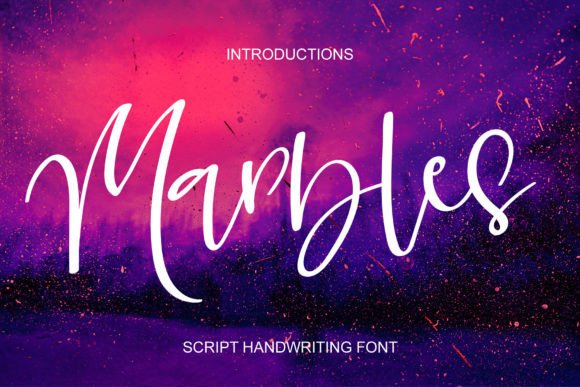
Journey through the Timeless Elegance of Marbles Font: A Symphony of Sophistication for Your Creative Endeavors
In the realm of digital artistry, where words dance across the screen, there lies a font with a captivating presence, a font that exudes an aura of timeless elegance: Marbles Font. This exquisite creation from the ateliers of YanStudio is a testament to the power of penmanship, a symphony of sophistication that will elevate your designs to new heights of artistry.
Marbles Font: The Epitome of Classic Typing
With its graceful curves and sweeping strokes, Marbles Font embodies the essence of classic typing. Each character is a work of art, meticulously crafted to evoke a sense of nostalgia and charm. Whether you're a seasoned designer seeking to add a touch of vintage allure to your projects or a budding artist exploring the world of typography, Marbles Font will be your trusted companion.
Unlock Your Creative Potential with Marbles Font
Marbles Font is not just a font; it's an open door to a world of creative possibilities. Let your imagination soar as you explore the endless applications of this versatile font. From elegant wedding invitations to captivating social media posts, from heartfelt handwritten letters to stunning DIY projects, Marbles Font will transform your words into visual masterpieces.
Craft Exquisite Digital Art with Marbles Font
Marbles Font is the perfect choice for those who seek to create captivating digital art. Its delicate lines and flowing strokes add a touch of elegance to illustrations, digital paintings, and graphic designs. Whether you're a seasoned artist or just starting your journey, Marbles Font will elevate your digital creations to new levels of artistry.
Experience the Magic of Marbles Font Today
Marbles Font is more than just a font; it's an experience. It's an invitation to step into a world of timeless elegance and boundless creativity. Download Marbles Font today and embark on a journey of artistic discovery. Let your words flow with grace and sophistication, and watch as your creative vision takes flight.